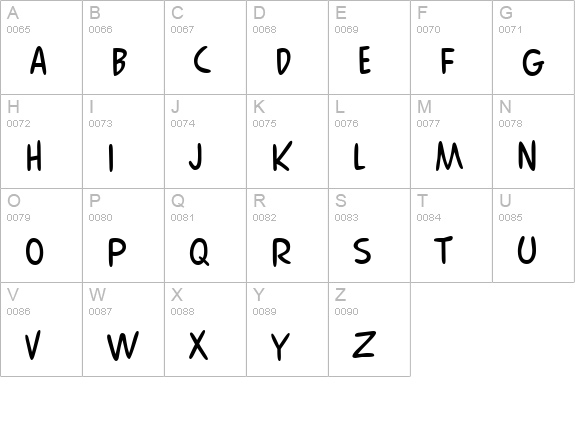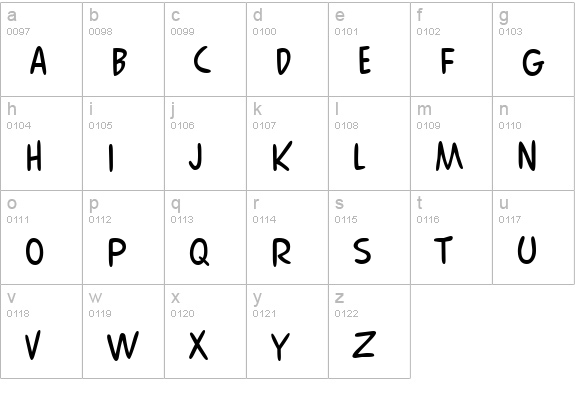
Comix Regular Font Details
Comix Regular is the standard, neutral variant in the Comix typeface family \xE2\x80\x94 well suited to general body text, paragraphs, and standard typographic work.
Comix Regular font is a playful and dynamic typeface that captures the essence of comic book lettering. With its bold lines and quirky details, this font is perfect for adding a fun and energetic touch to any design project. Whether you're creating a comic book, poster, or logo, Comix Regular will surely make your text stand out. The best part is that Comix Regular font is free to download at FontsMarket.com. You can easily access this unique font and use it in your personal or commercial projects without any restrictions. So go ahead and unleash your creativity with Comix Regular font today!